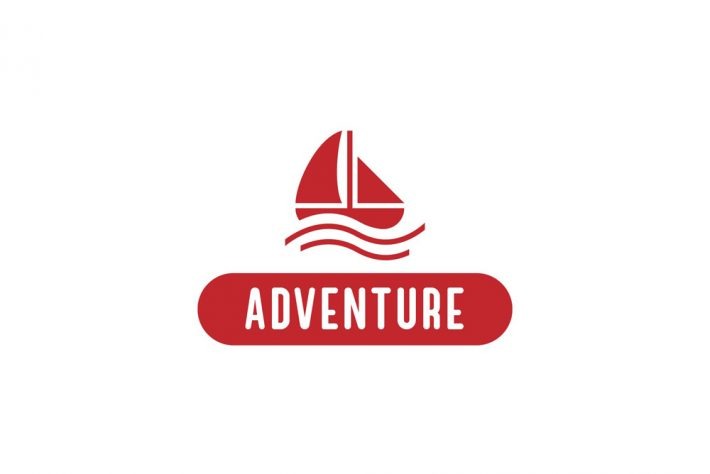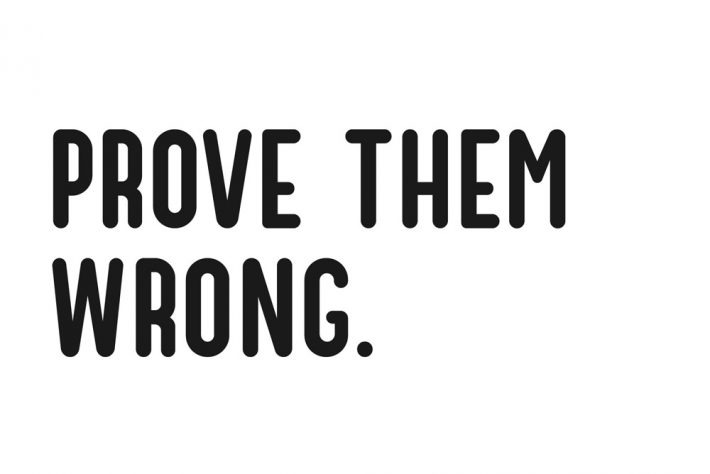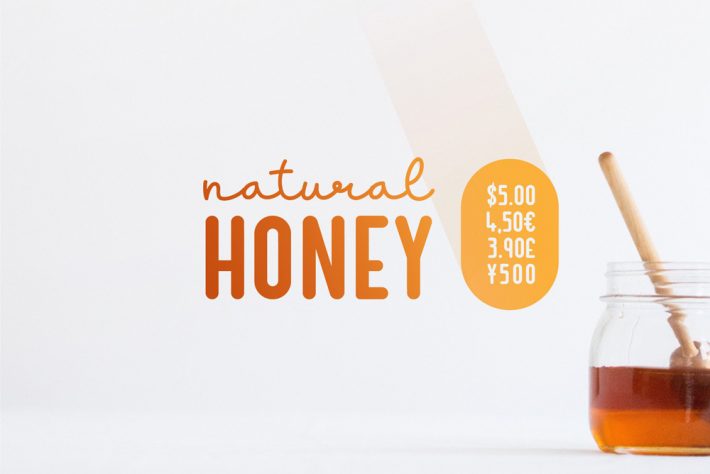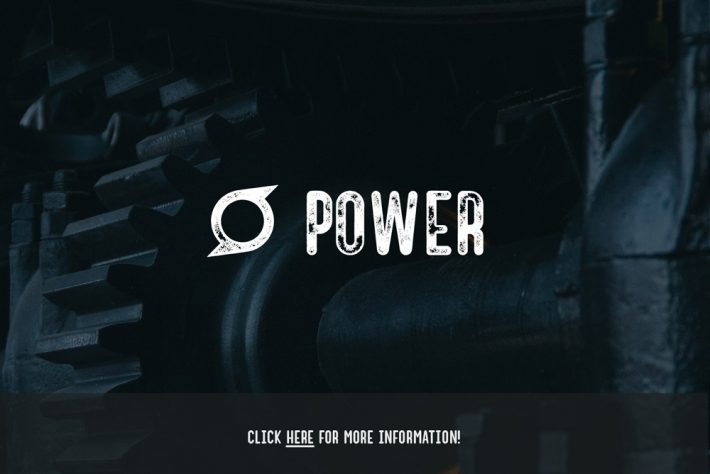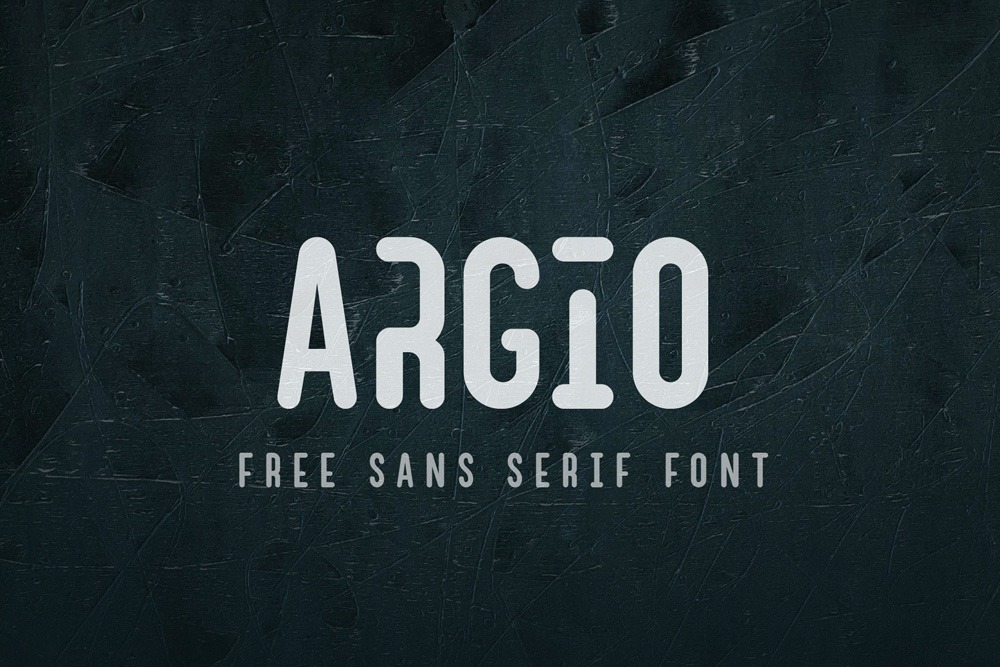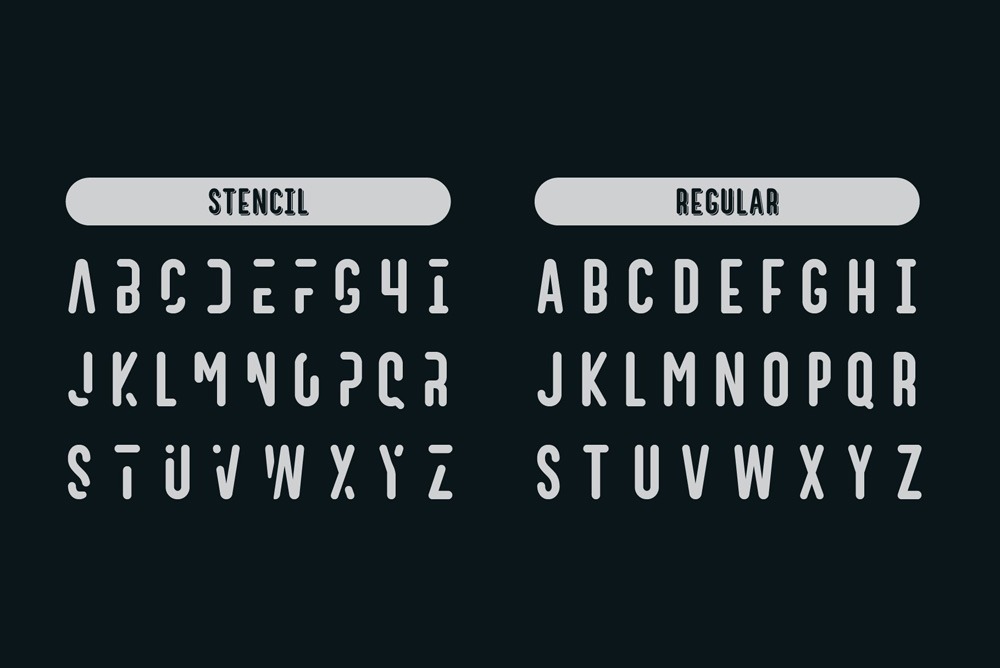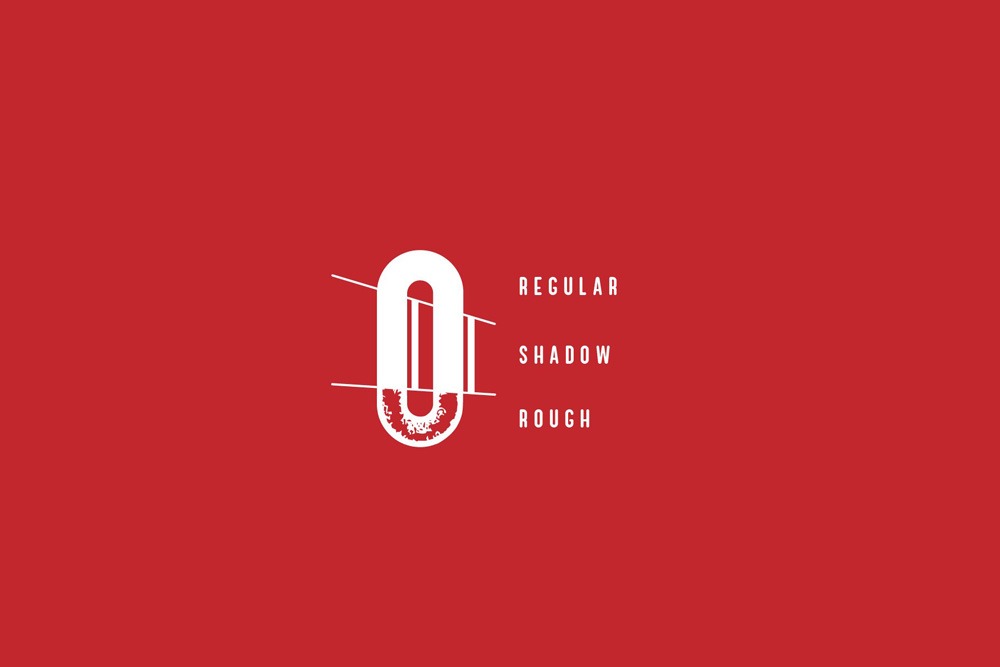
Argio Free Sans Serif Font is a fancy sans serif typeface with uncompelled stencils. This is also a geometrical and cool character font that is suitable for logos and headlines. By using optional stencils, you can give your work an exclusive and distinctive touch.
It has the five ligatures, just type “theliga” and you will get a matchless designed pre-set eye catcher. There are even more ligatures as well. The minus point is, you’ve to buy it for more features as this free font is for personal use only.